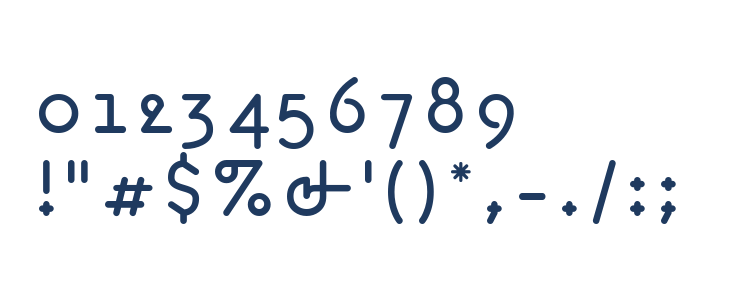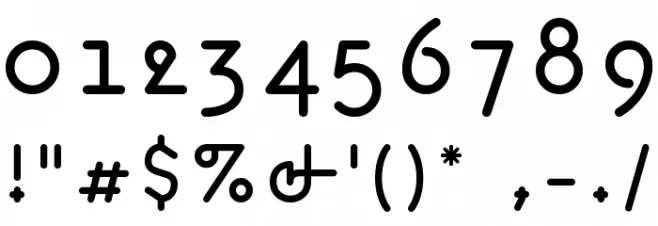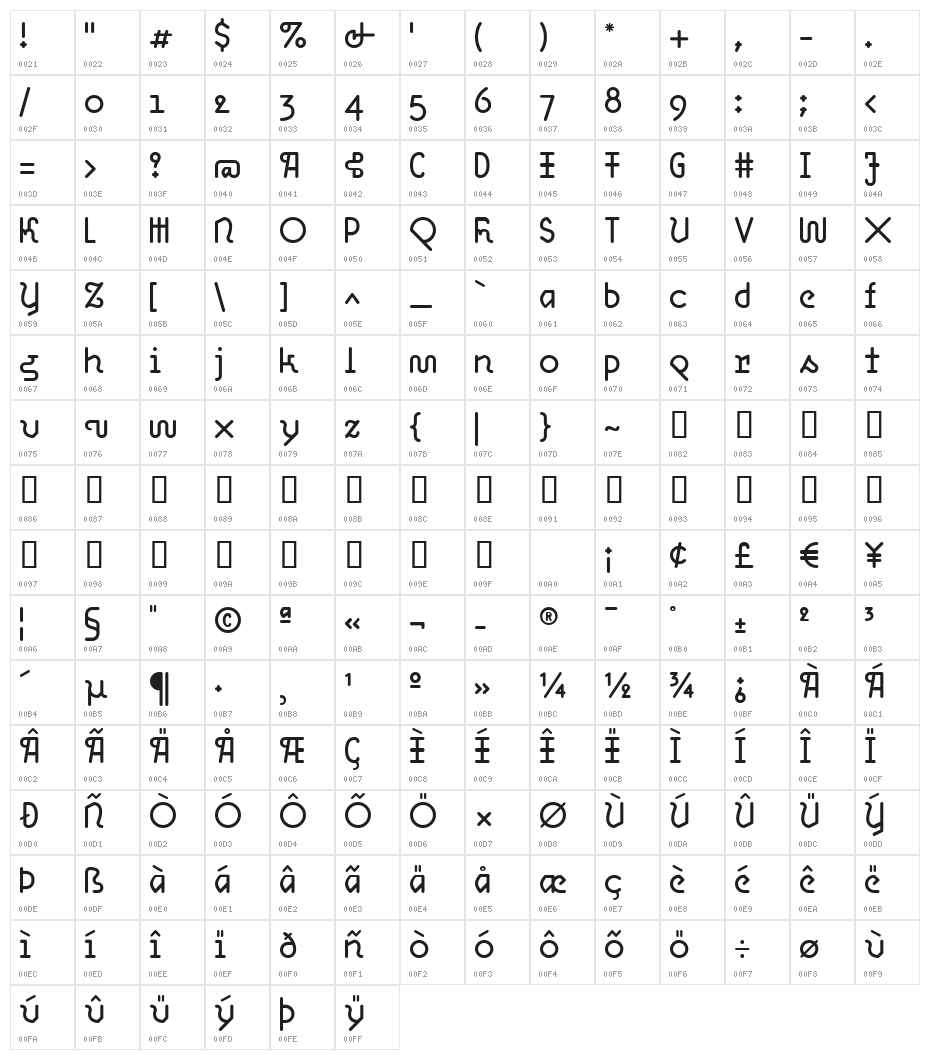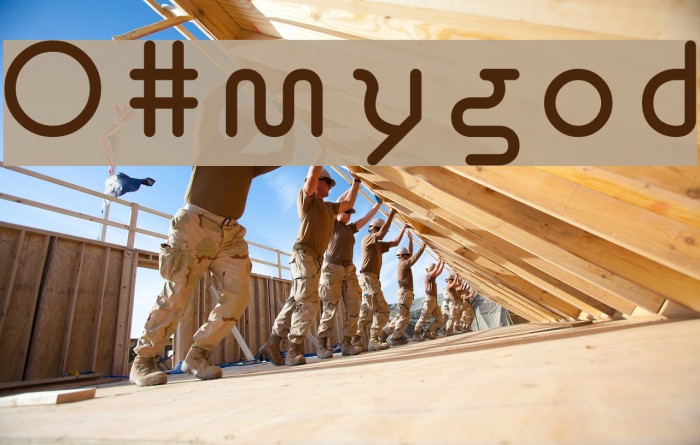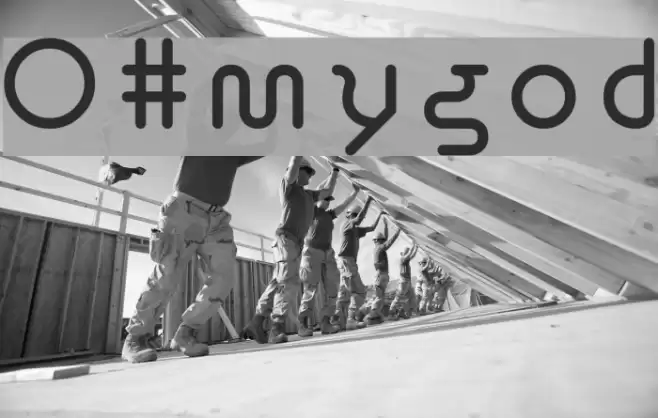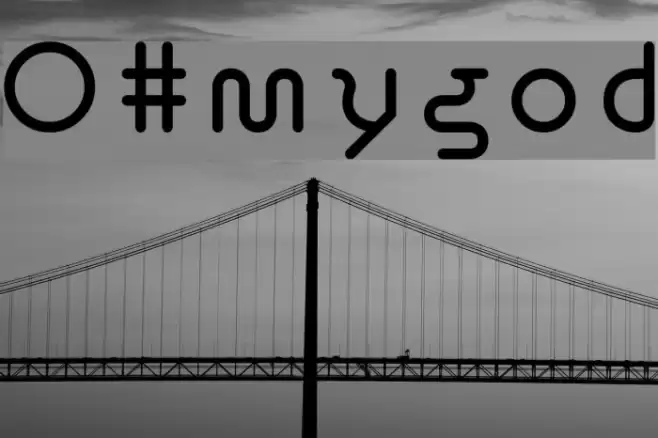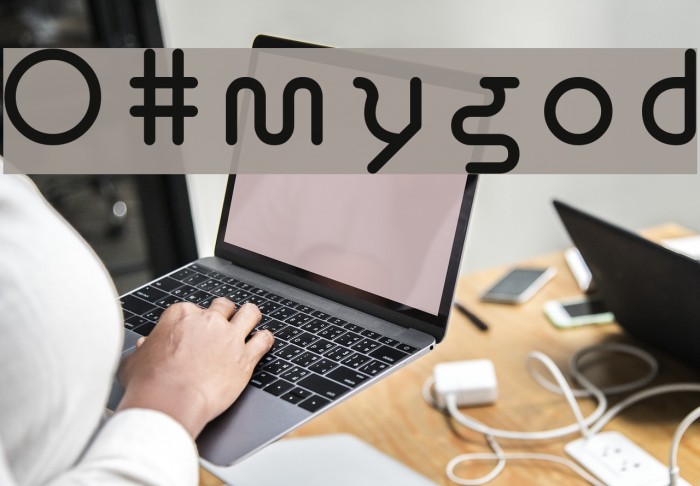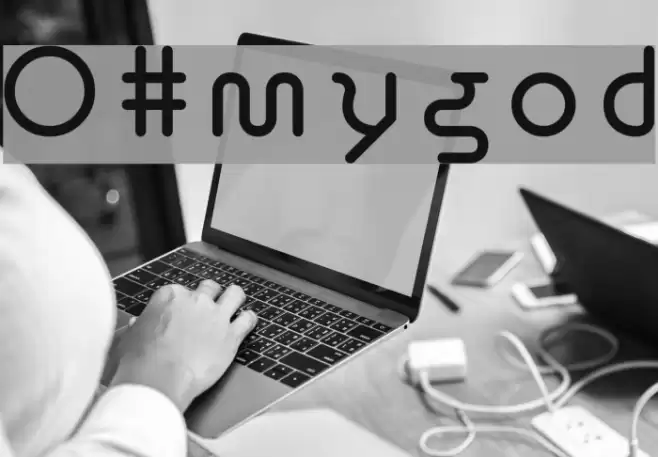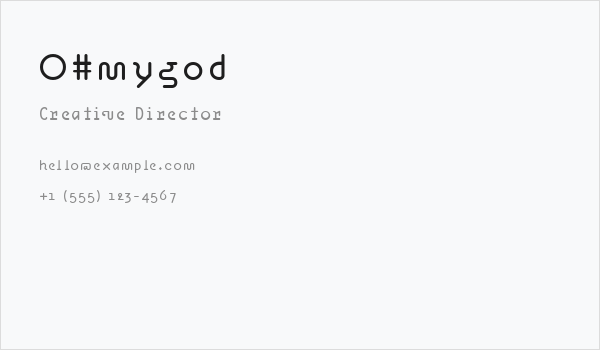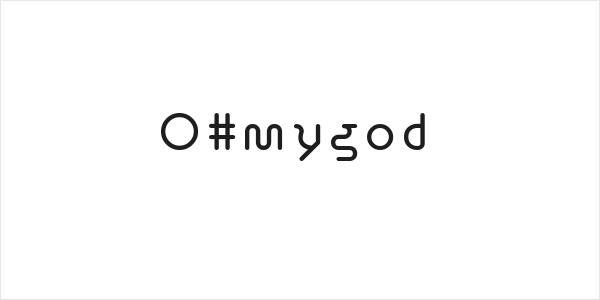
OHmygod Font
OHmygod Description
This font features a playful and quirky design with unique character shapes that incorporate unexpected twists and turns. The letters have a rounded, almost whimsical appearance, with some characters featuring distinctive loops and curves that add to its charm. The numbers and special characters follow the same playful style, making the font cohesive and visually interesting. The overall look is both modern and fun, suitable for projects that require a touch of creativity and individuality.
Overall StyleModern, Decorative
Proposed ProjectsIdeal for children's books, playful branding, creative posters, and unique invitations.